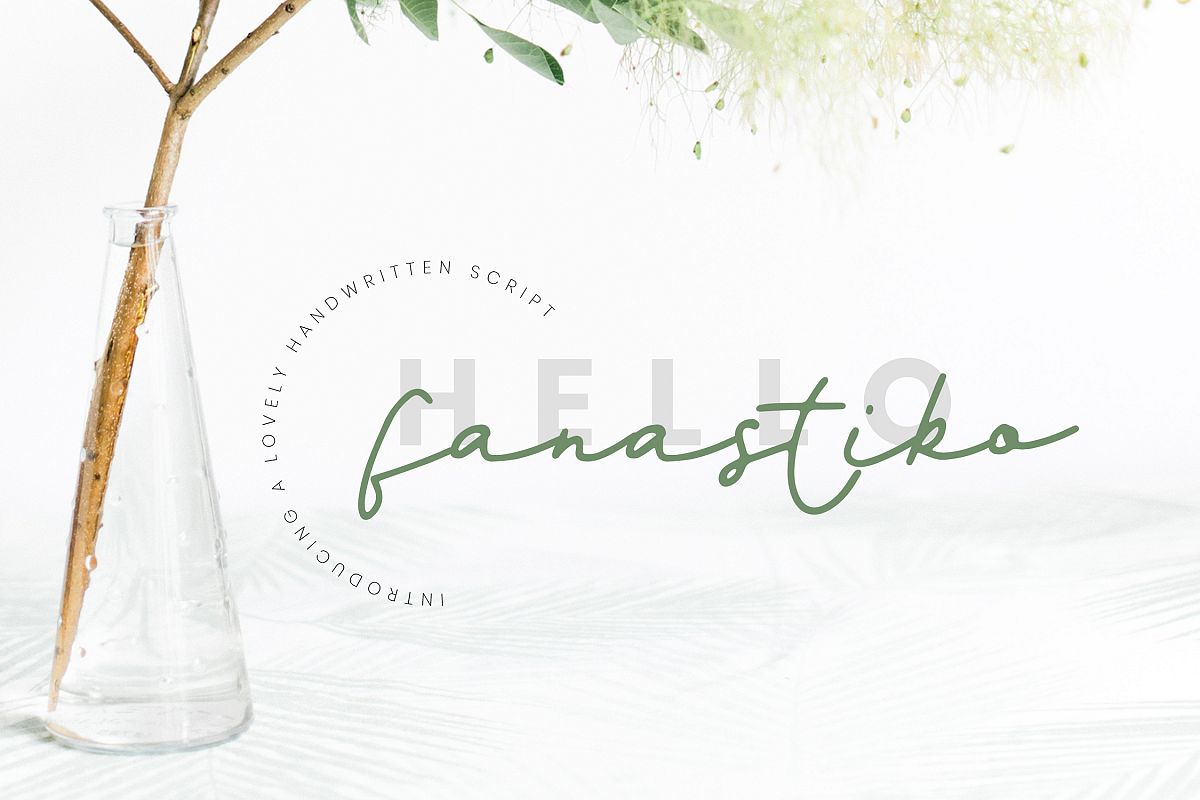
Fanastiko - A Lovely Signature Font
Fanastiko-Regular
Fanastiko Handwritten Script Font is a rough brush script font with a clear style and dramatic movement. This font is great for your next creative project. Fanastiko is perfect for any project design like logo, wedding designs, social media posts, advertisements, product packaging, product designs, label, photography, watermark, invitation, stationery or etcWhat’s Included :